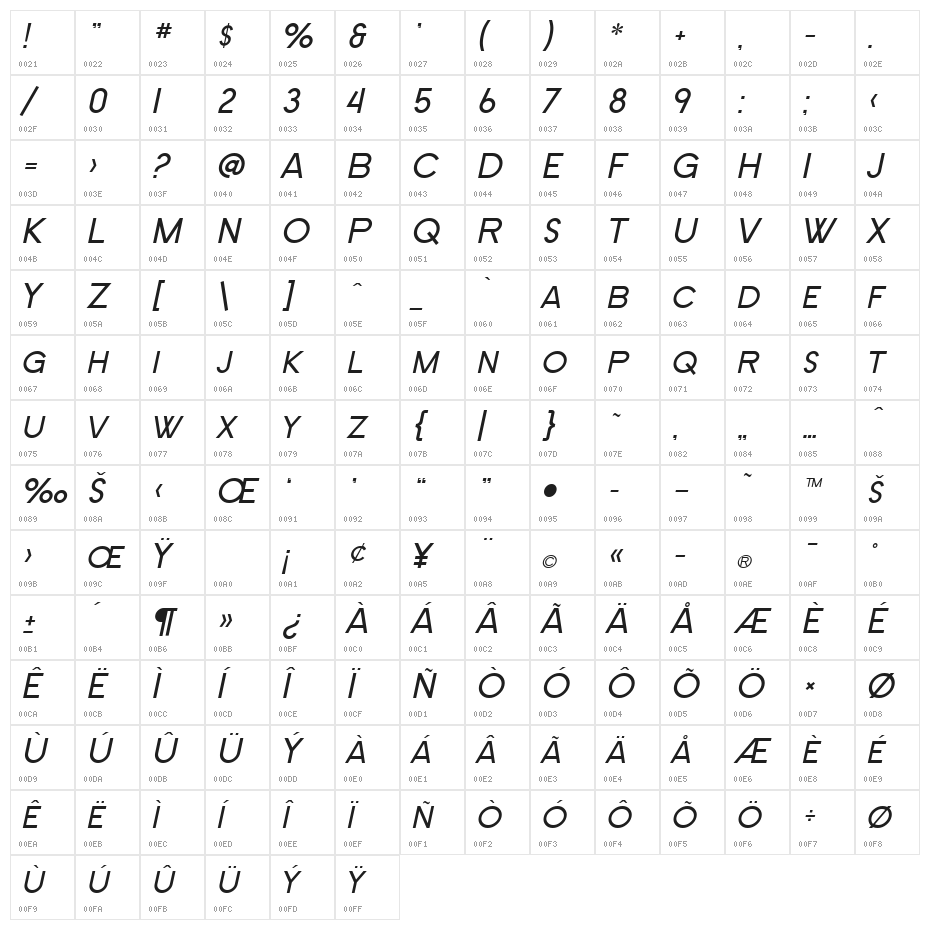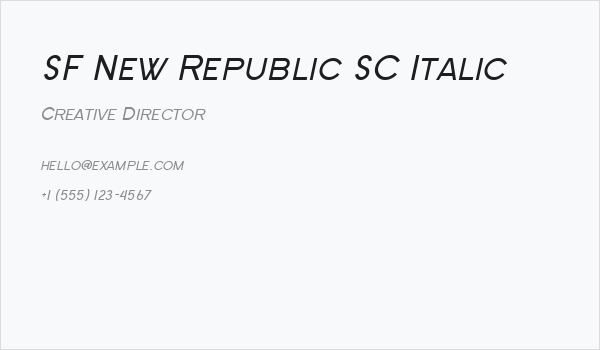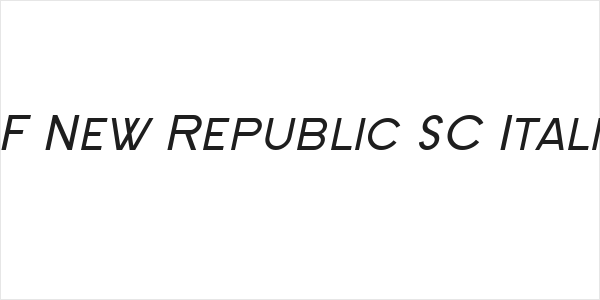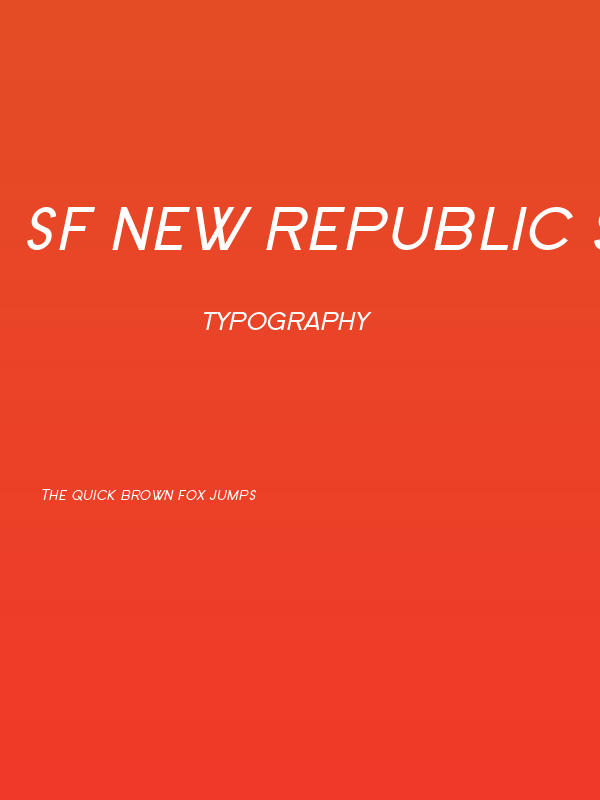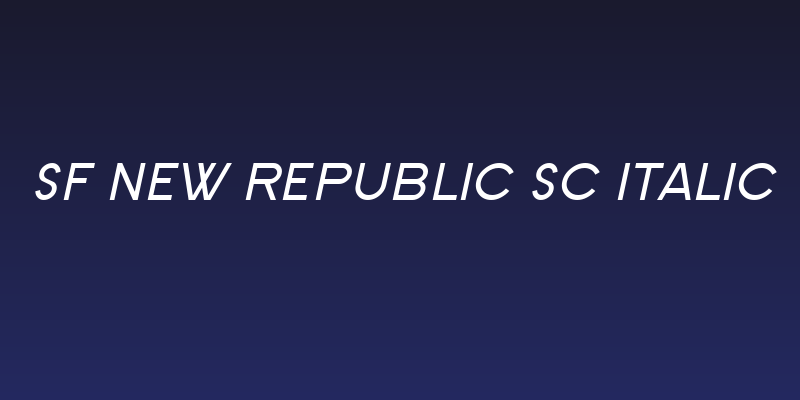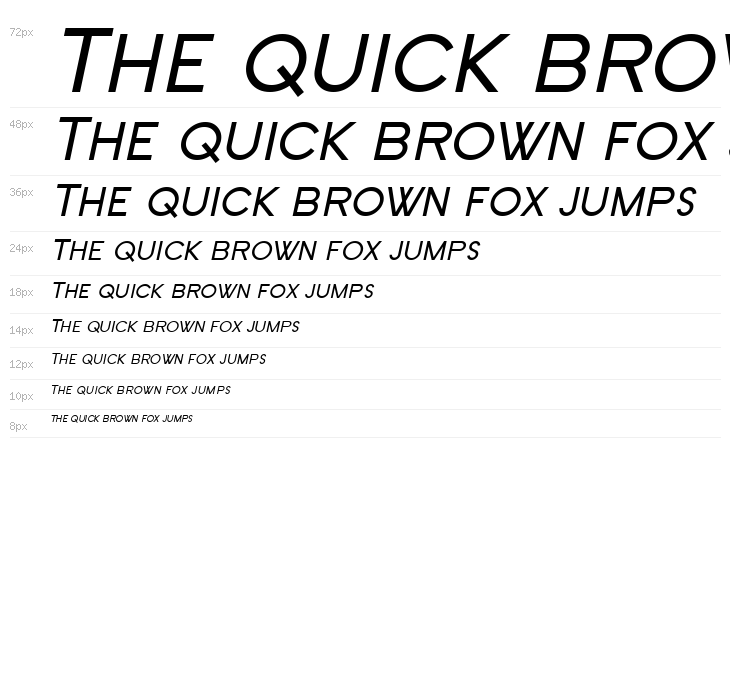
SF New Republic SC Italic Font
SF New Republic SC Italic Description
This font features a sleek and modern design with italicized characters that convey a sense of motion and elegance. The uppercase and lowercase letters are well-proportioned, with a slight slant that adds dynamism to the text. The numerals are clear and distinct, making them easy to read. Special characters are included, maintaining the font's cohesive style. The overall appearance is clean and professional, suitable for a variety of applications where a contemporary and stylish look is desired.
| Use Case | Headlines, Logos, Editorial design |
| Proposed Projects | Ideal for branding, advertising, and editorial design projects that require a modern and elegant touch. |